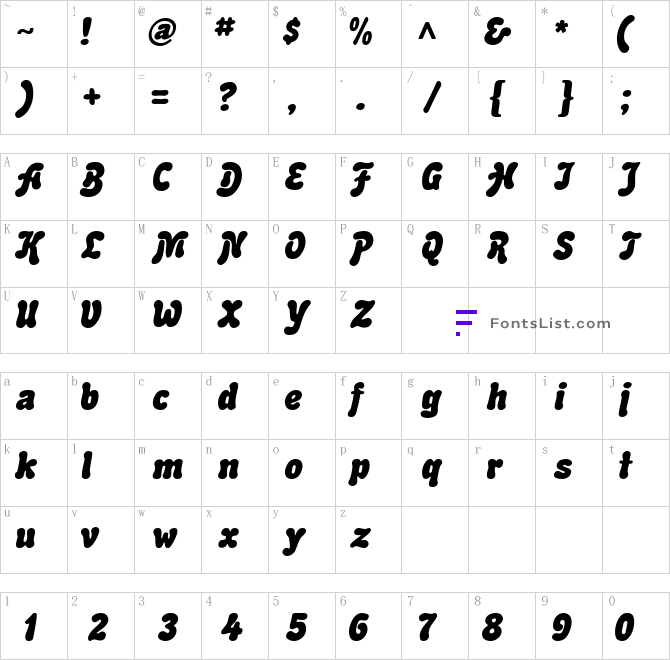
- Font Name:Advert MF
- Subfamily:Macromedia Fontographer 4.1.3 Advert MF Italic
- Full Name:Advert MF Italic
Advert-MF-Italic.ttf is a very beautiful artistic font, Advert-MF-Italic.ttf is widely used in the design and printing of various books and pictures,Advert-MF-Italic.ttf has a strong visual impact,Advert-MF-Italic.ttf is a commonly used font in newspapers, magazines and books, and is used in posters, e-commerce Poster design, store design, logo design, font design and other fields.Advert-MF-Italic.